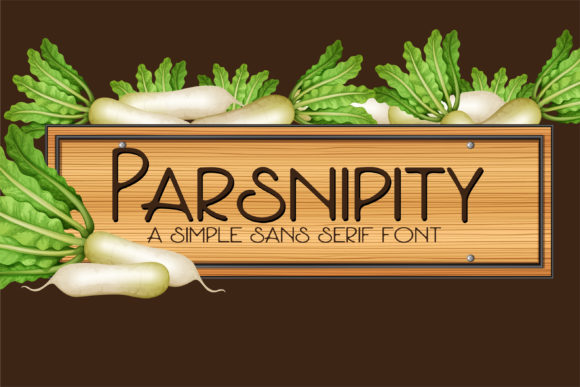
Introducing Parsnipity Font, a captivating sans serif typeface that will take your designs to new heights! Created by the talented team at Illustration Ink, this font family is perfect for those seeking a unique and eye-catching touch to their projects.
With its distinctive flourished uppercase letters and sleek lowercase counterparts, Parsnipity Font stands out from the crowd. Whether you're designing a logo, crafting a website, or creating stunning social media graphics, this font will elevate your work to a whole new level.
The tall uppercase letters in Parsnipity Font exude elegance and sophistication. They add a touch of refinement to any design, making it perfect for creating professional and memorable branding materials. Imagine your logo or company name beautifully crafted with this font, instantly leaving a lasting impression on your audience.
But don't be fooled by its tall uppercase letters – the lowercase letters in Parsnipity Font are equally impressive. With a clean and minimalist design, they complement the uppercase letters perfectly, adding balance and harmony to your typography. This font strikes the perfect balance between creativity and professionalism, making it suitable for a wide range of design projects.
Beyond its stunning appearance, Parsnipity Font is also incredibly versatile. It effortlessly adapts to various design themes, from modern and minimalist to bold and vibrant. This adaptability ensures that your designs will always be on-trend and visually appealing.
When it comes to marketing, emotions play a crucial role in capturing the attention of potential buyers. Parsnipity Font evokes a sense of elegance, sophistication, and creativity, instantly captivating your audience. Picture your audience scrolling through a collection page – their eyes are naturally drawn to the unique flourishes and impeccable letterforms of Parsnipity Font, making it impossible to resist.
In conclusion, Parsnipity Font is not your ordinary sans serif typeface. It is a work of art, meticulously crafted to add a touch of elegance and creativity to any design. With its tall and flourished uppercase letters, balanced by sleek lowercase counterparts, this font strikes the perfect balance between professionalism and creativity. Whether you're designing a logo, website, or social media graphics, Parsnipity Font will captivate your audience and leave a lasting impression. Elevate your designs with Parsnipity Font today!